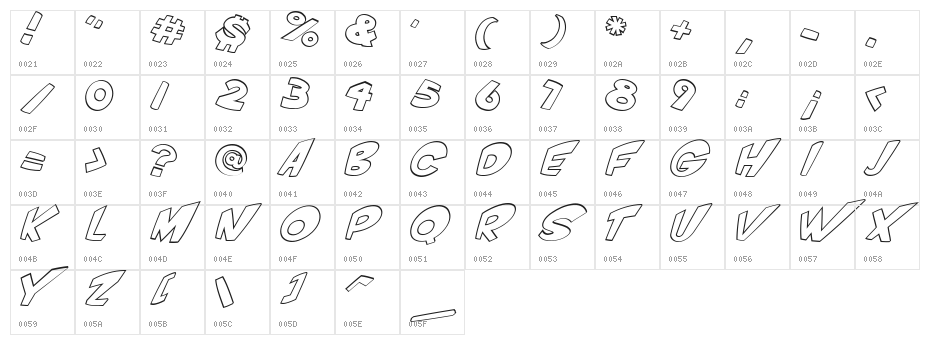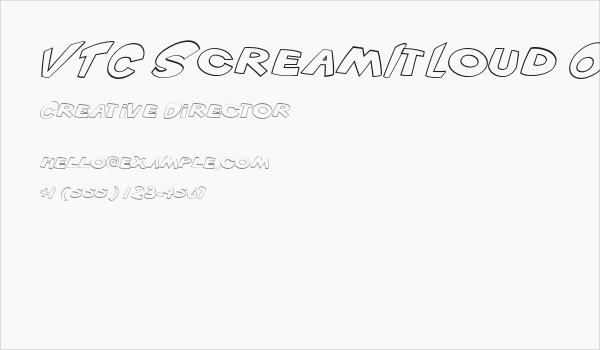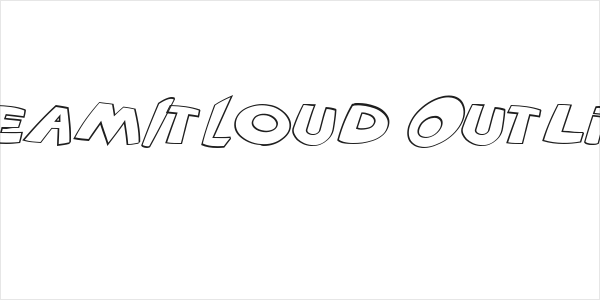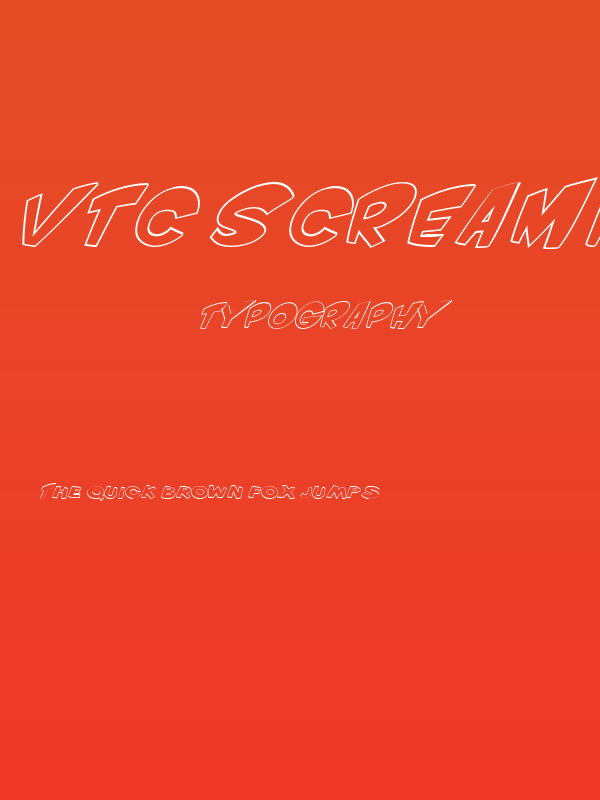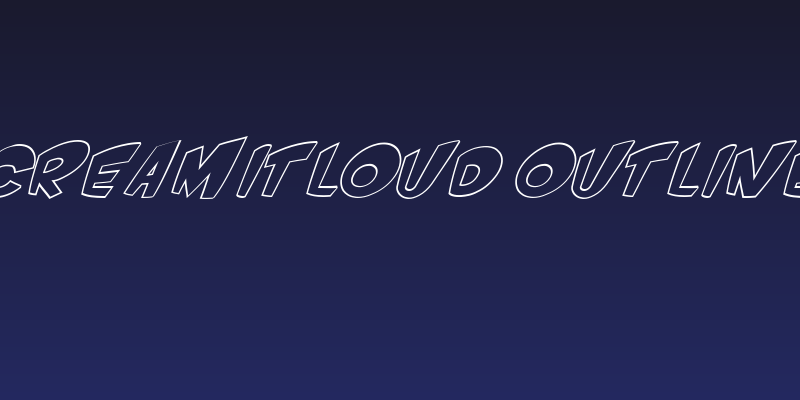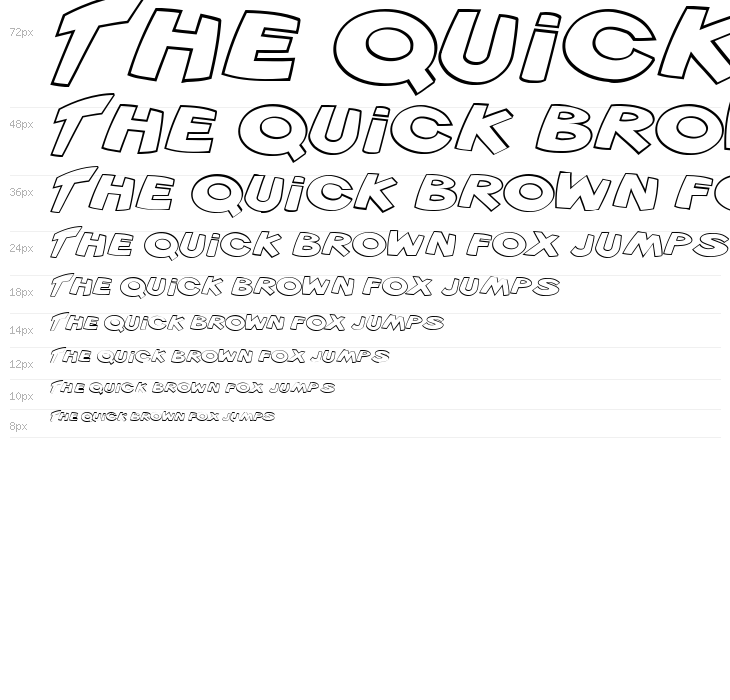
VTC ScreamItLoud Outline Italic Font
VTC ScreamItLoud Outline Italic Description
This font features a bold, outlined style with a playful and energetic appearance. The letters are italicized, giving them a dynamic, forward-leaning posture. Each character is outlined, creating a hollow effect that adds depth and dimension. The font maintains a consistent stroke width throughout, contributing to its bold and impactful look. The uppercase and lowercase letters are distinct yet harmonious, with a slight slant that enhances the overall movement and flow. The numbers and special characters are designed to match the lively and bold aesthetic, making the font suitable for attention-grabbing designs.